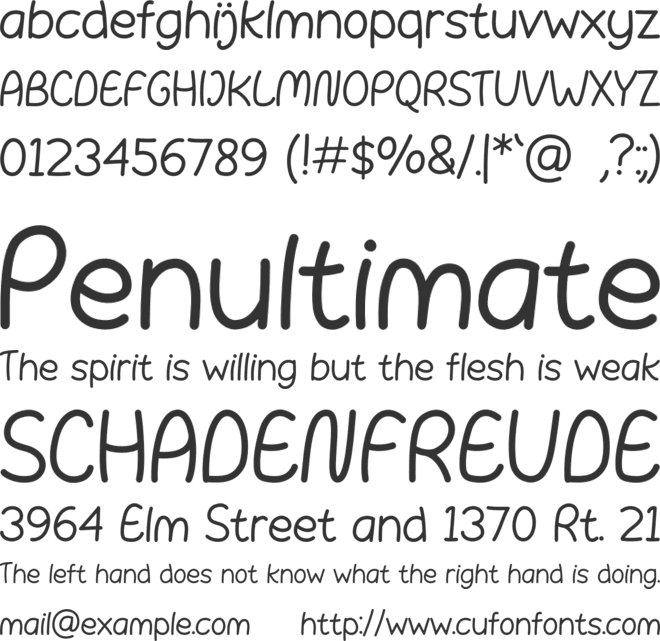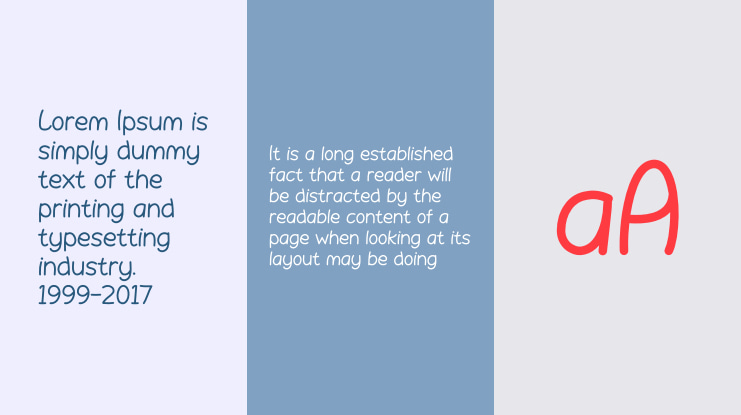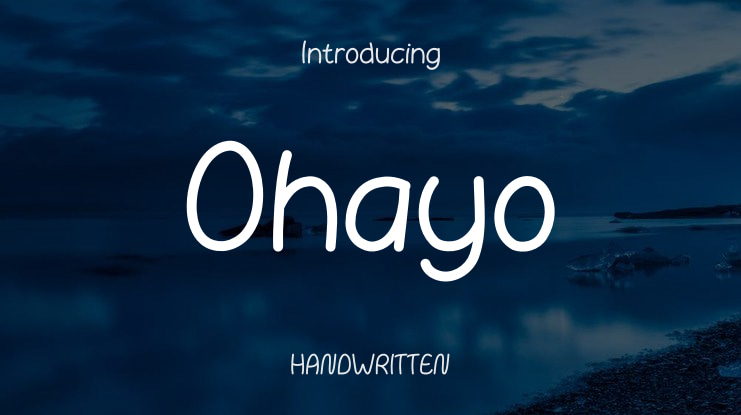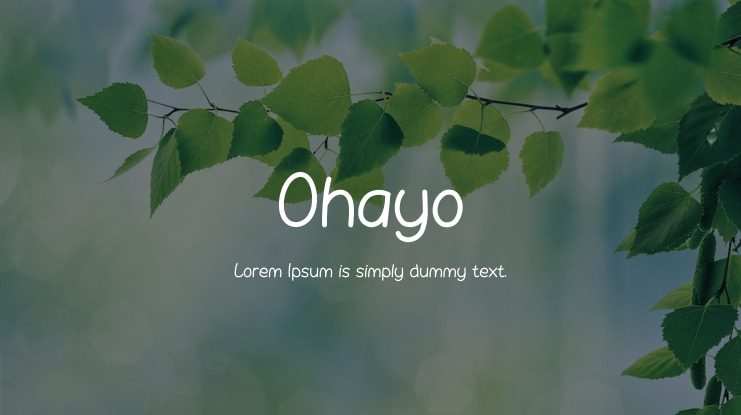
Ohayo Font
Ohayo is a sweet, simple lettering font that is both adaptable and handwritten. Its cute and lively style makes it a wonderful choice for brightening up your designs.